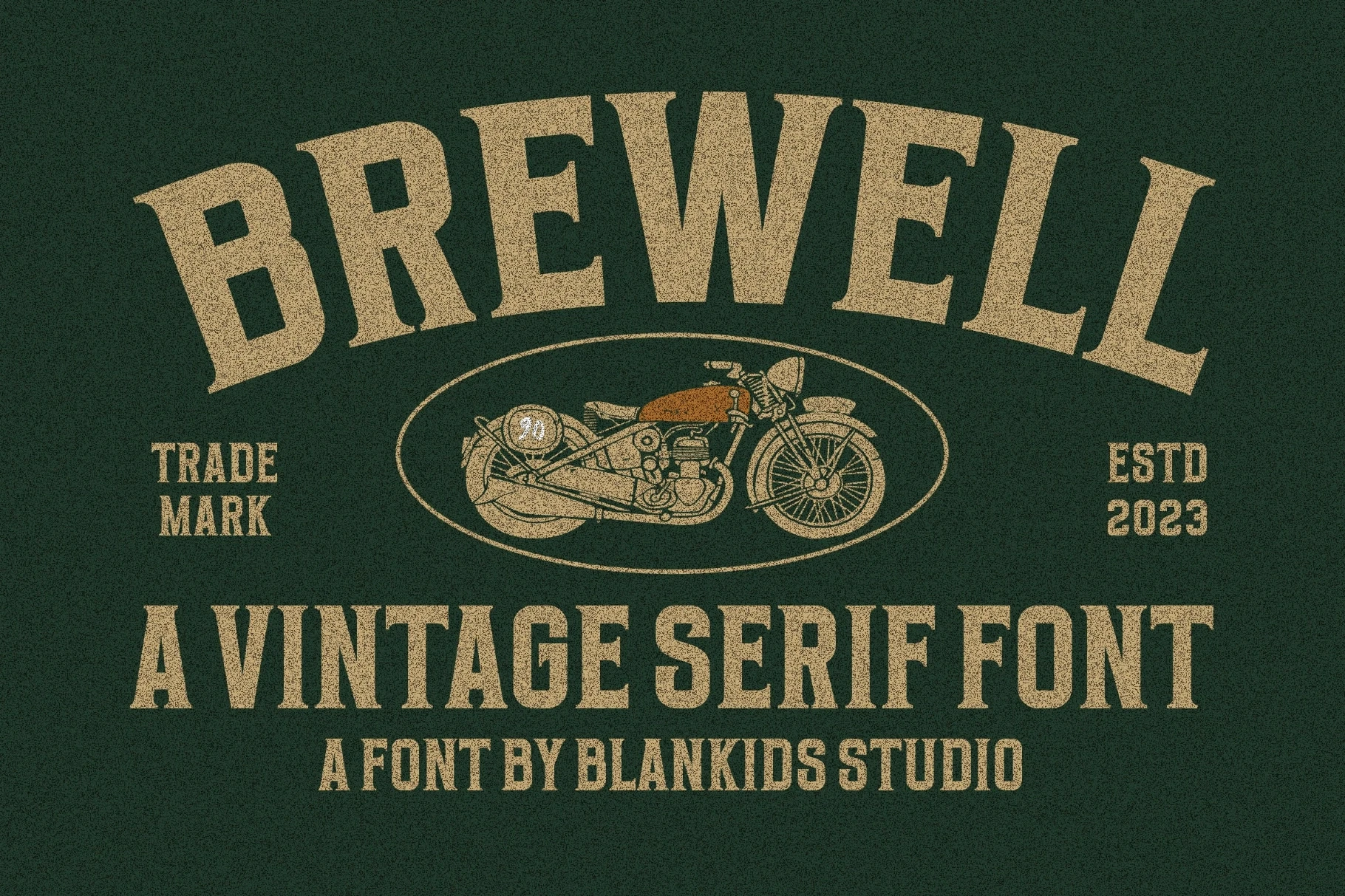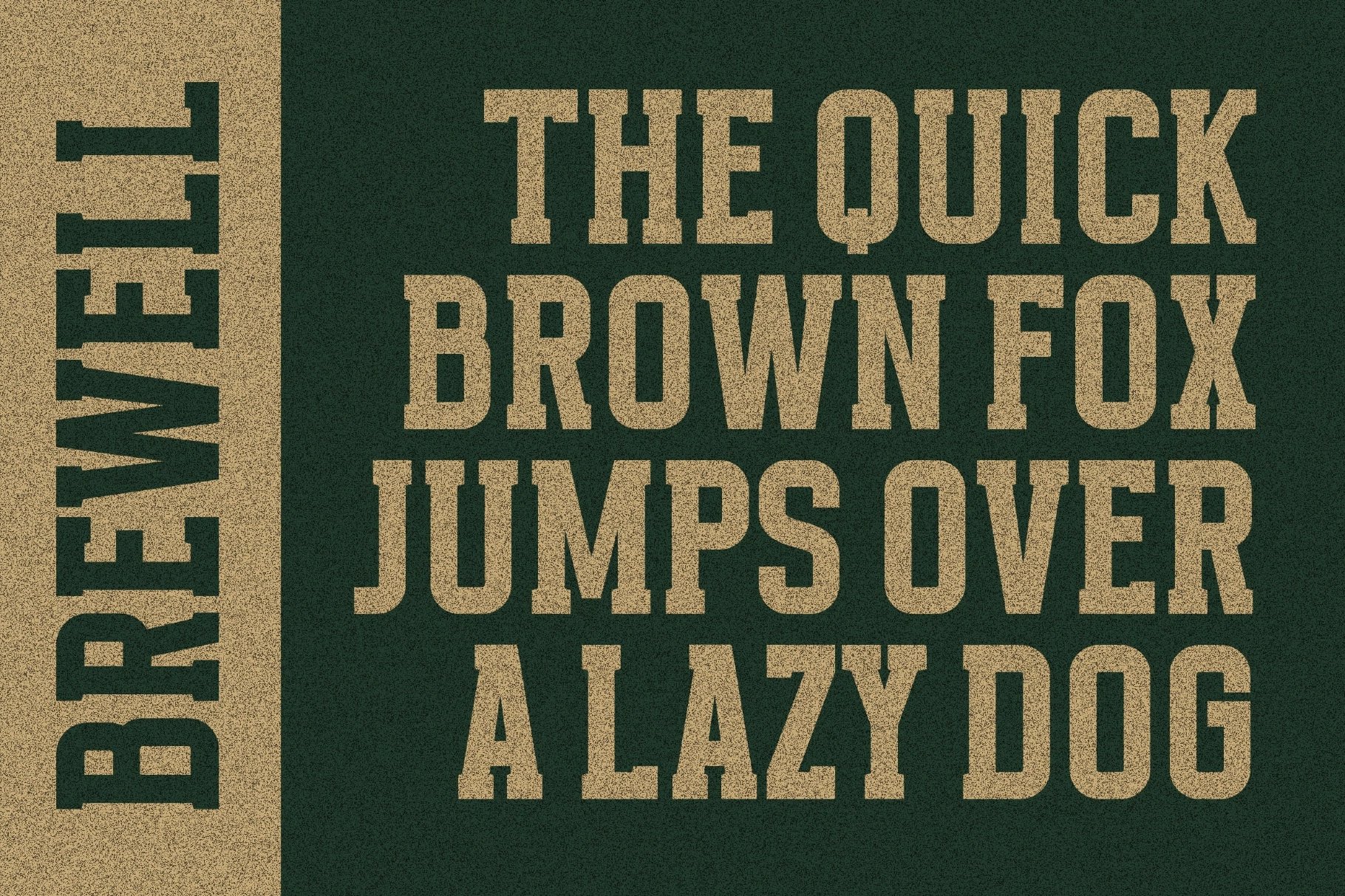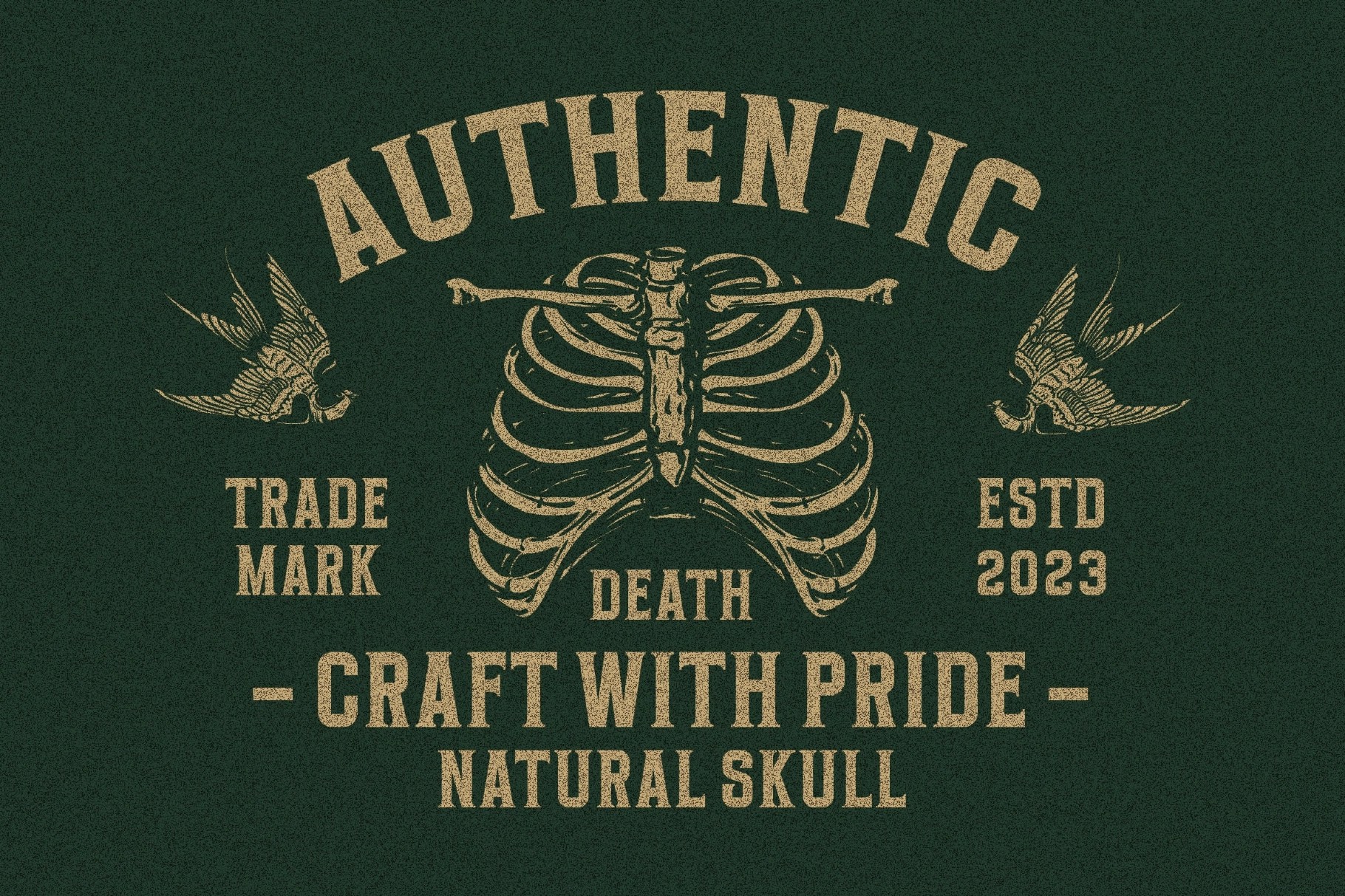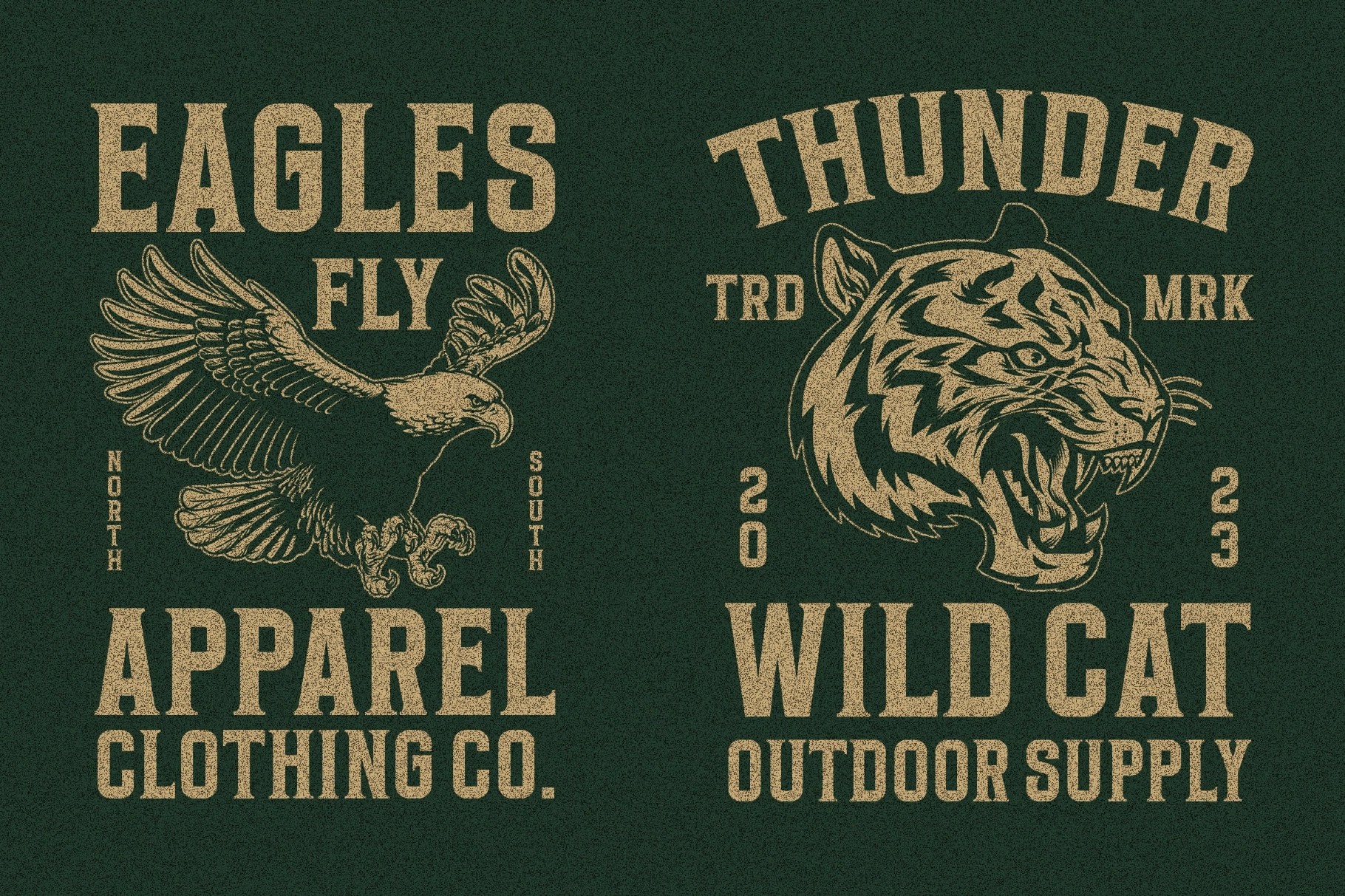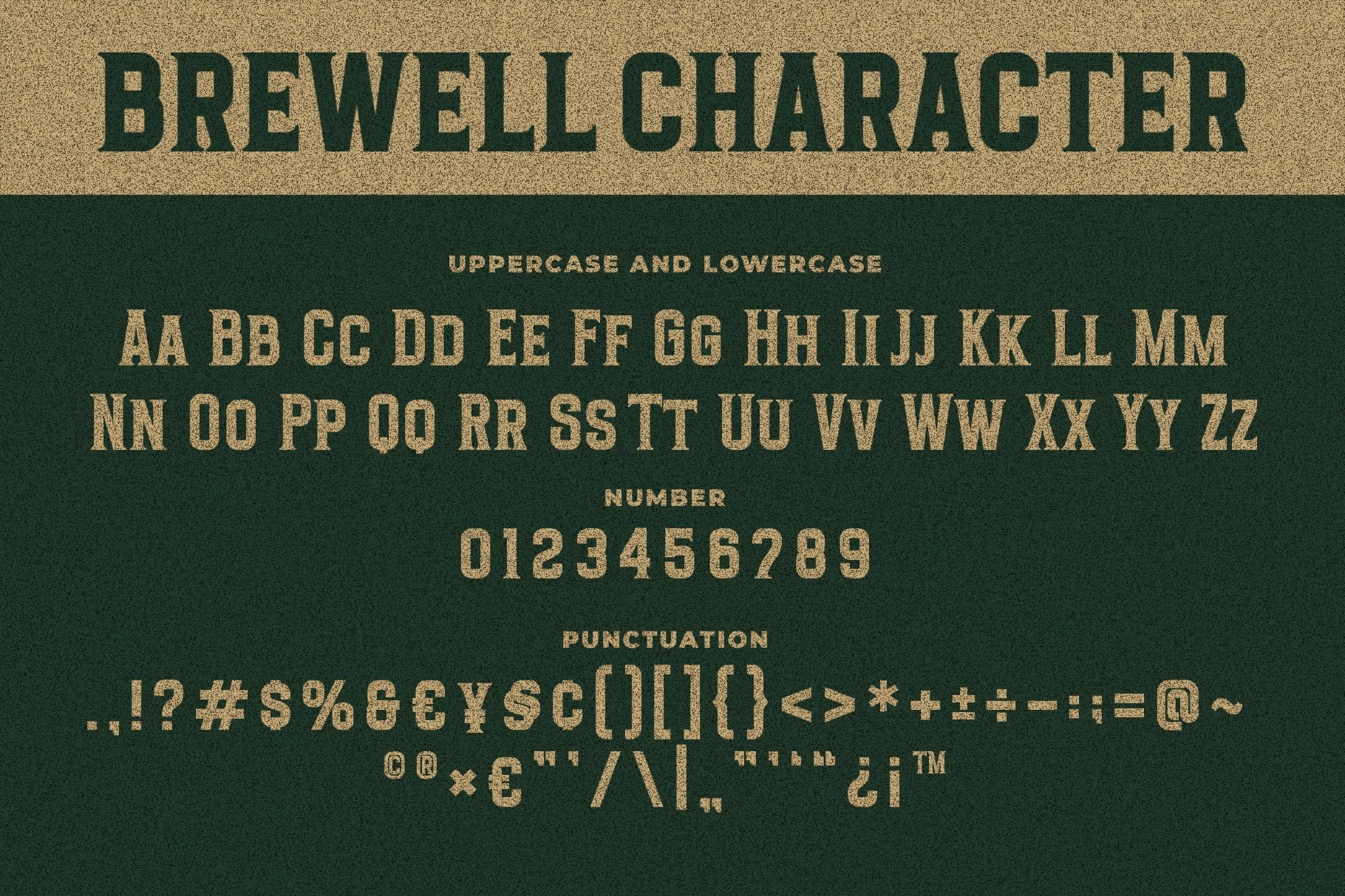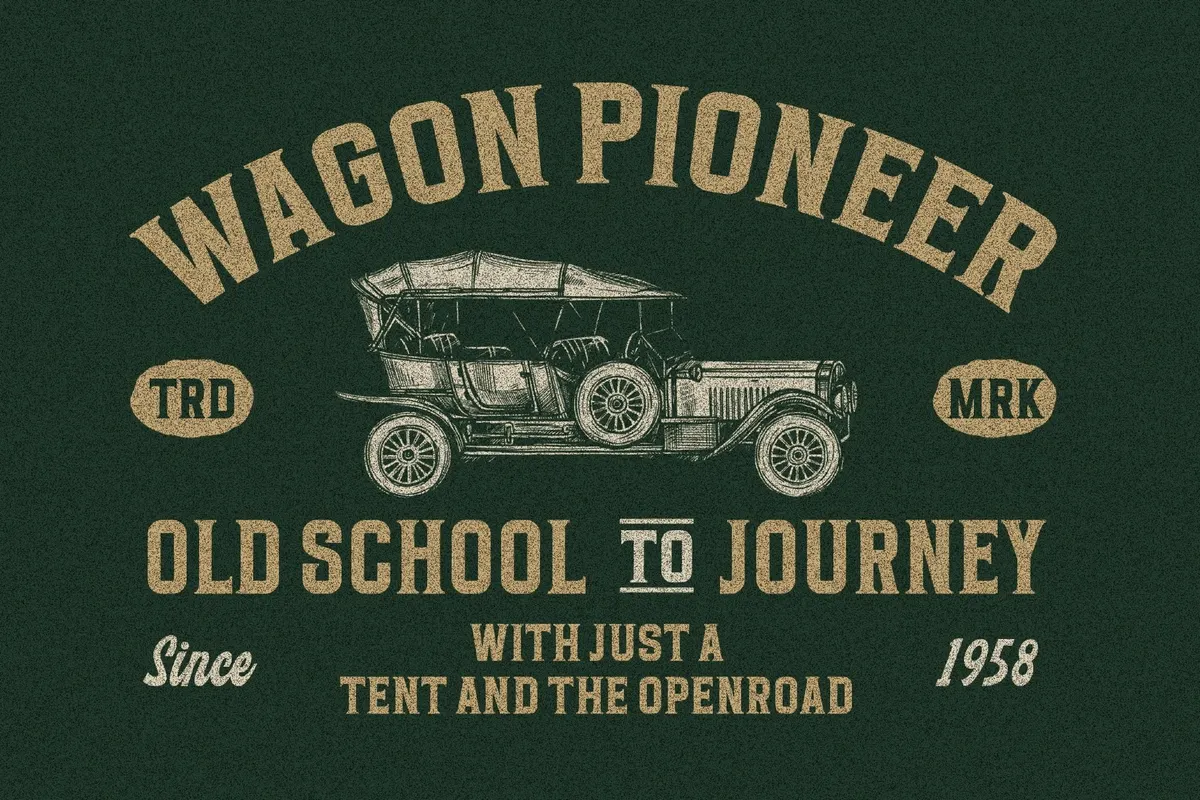
Brewell a Classic Vintage Serif Font
Brewell
Brewell – Classic Vintage Serif Font is a bold vintage serif typeface inspired by classic collegiate and heritage-style typography. With strong letterforms and a timeless serif structure, Brewell delivers a confident retro aesthetic while maintaining excellent readability. Its balanced design brings a sense of tradition and character, making it ideal for designs that require a classic yet distinctive typographic presence.
Perfect for logos, posters, packaging, merchandise, book covers, branding, and editorial layouts, Brewell adds a nostalgic vintage charm that works beautifully across both modern and retro-inspired design projects.